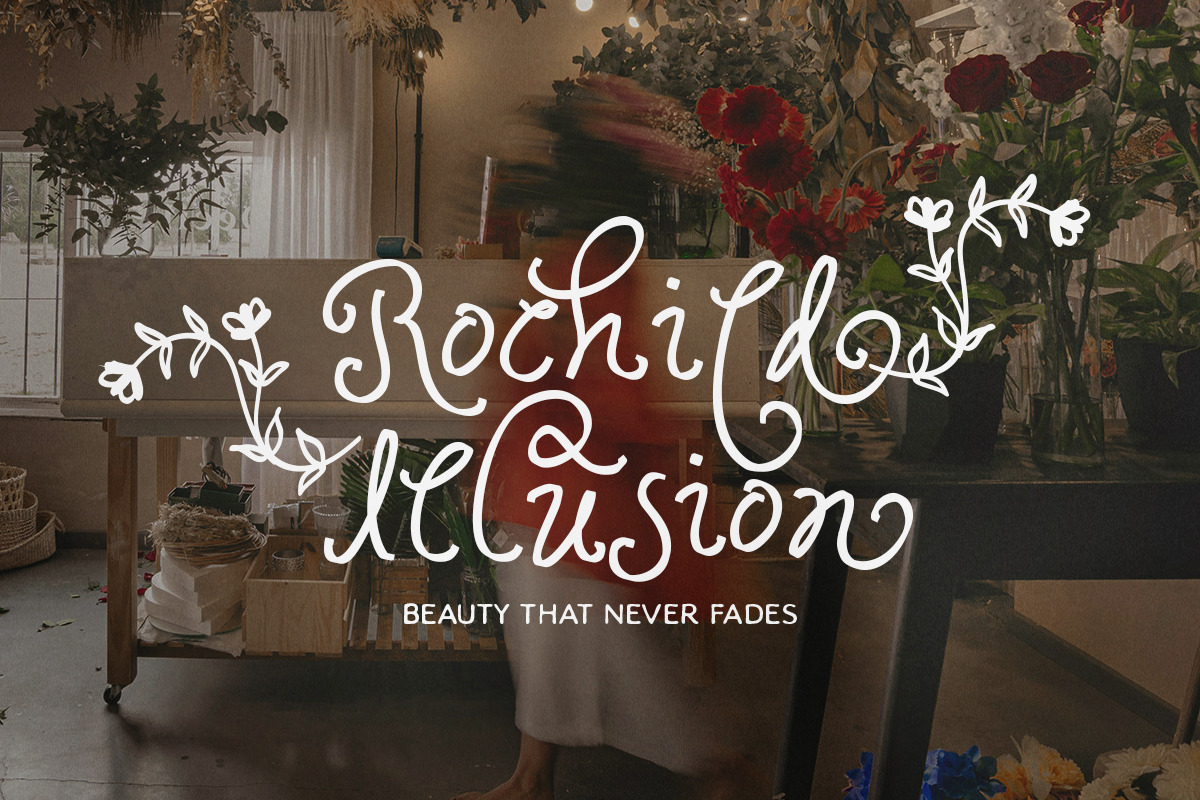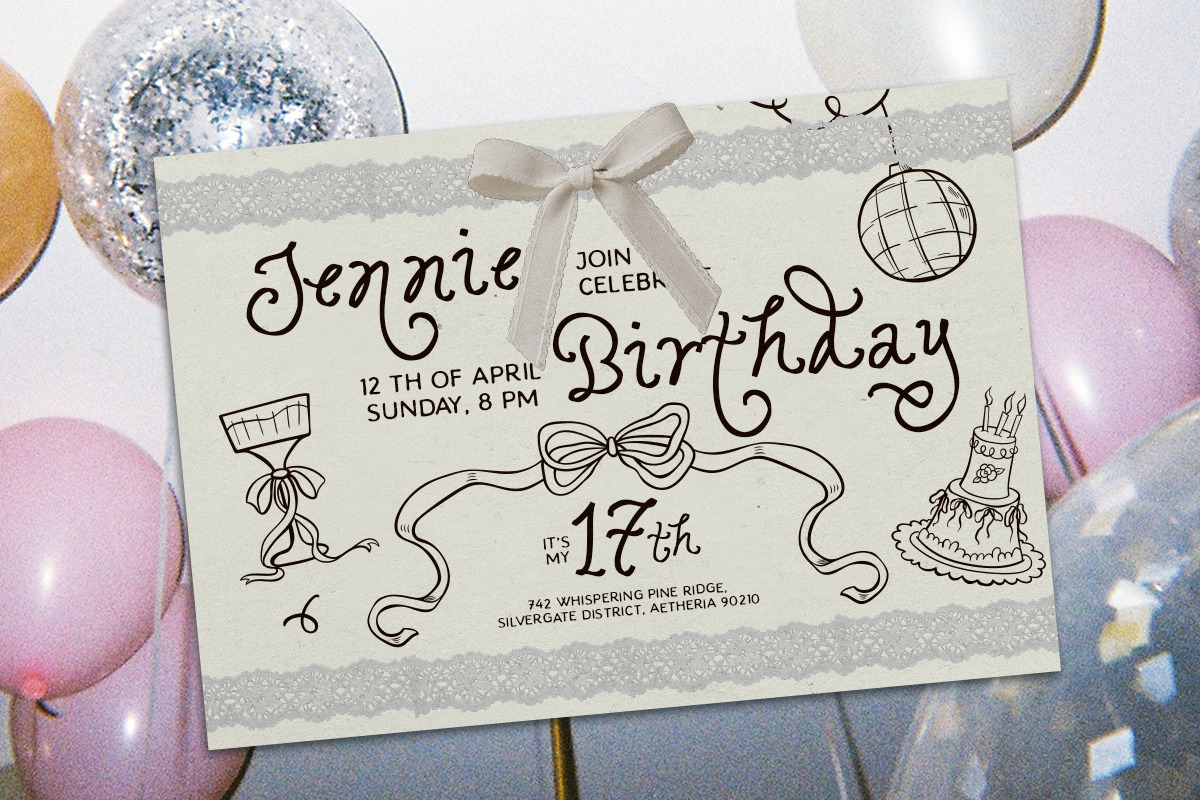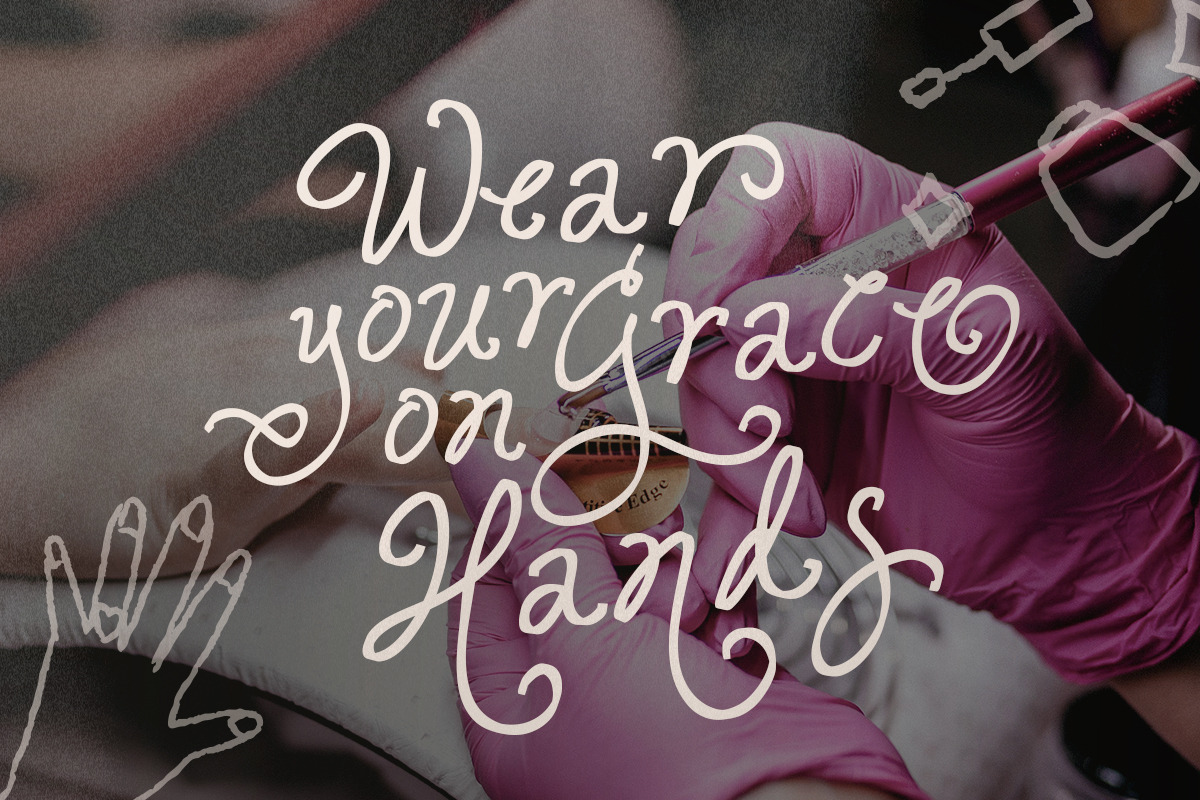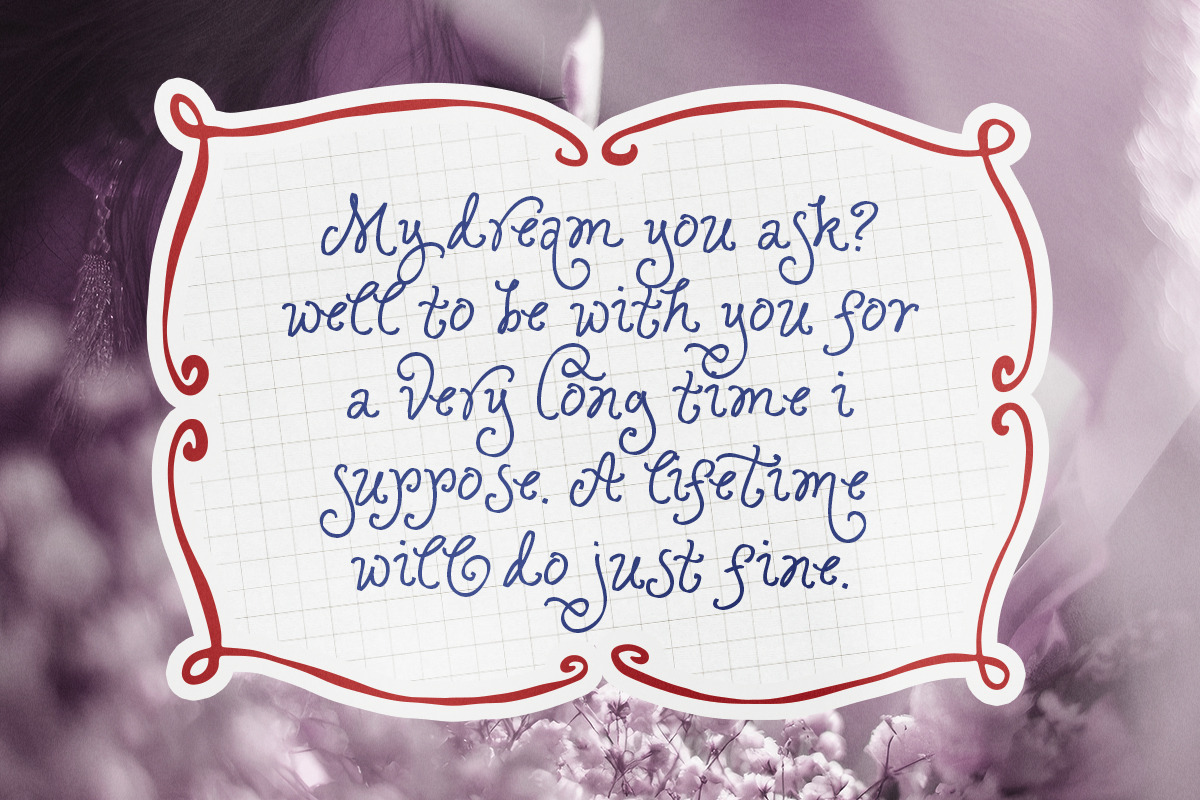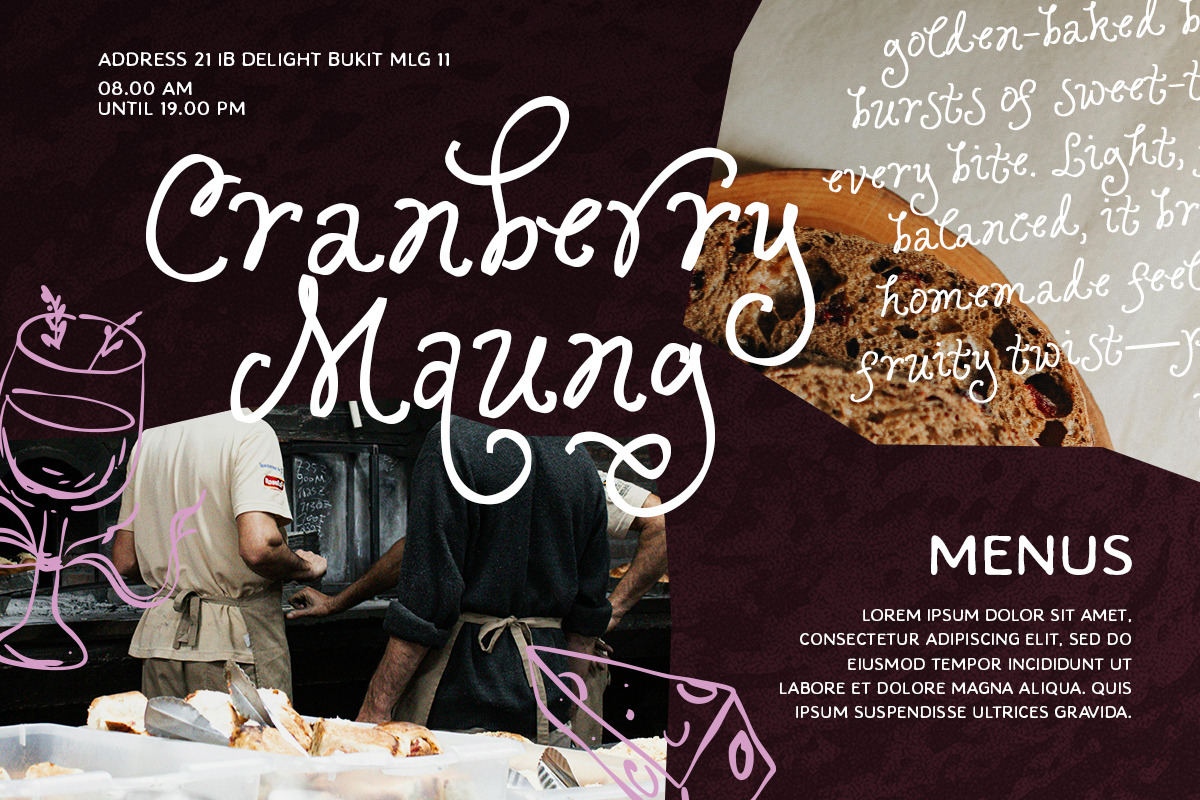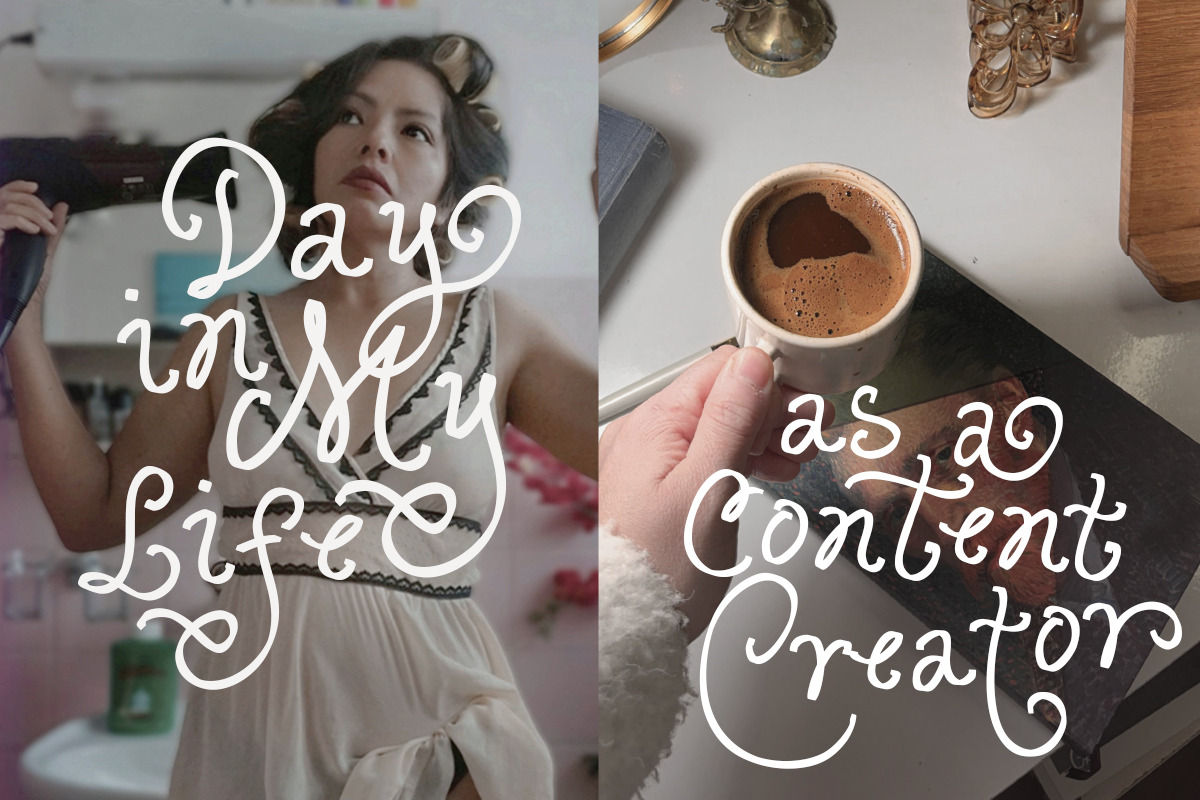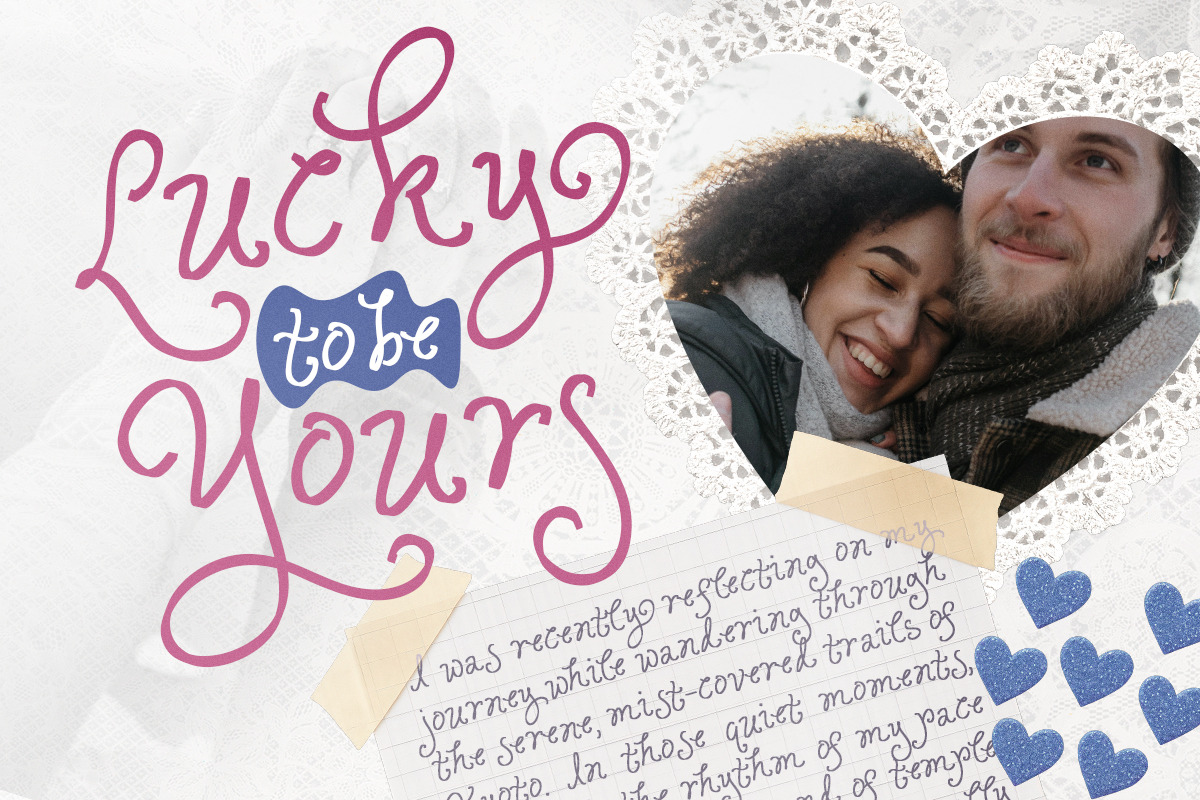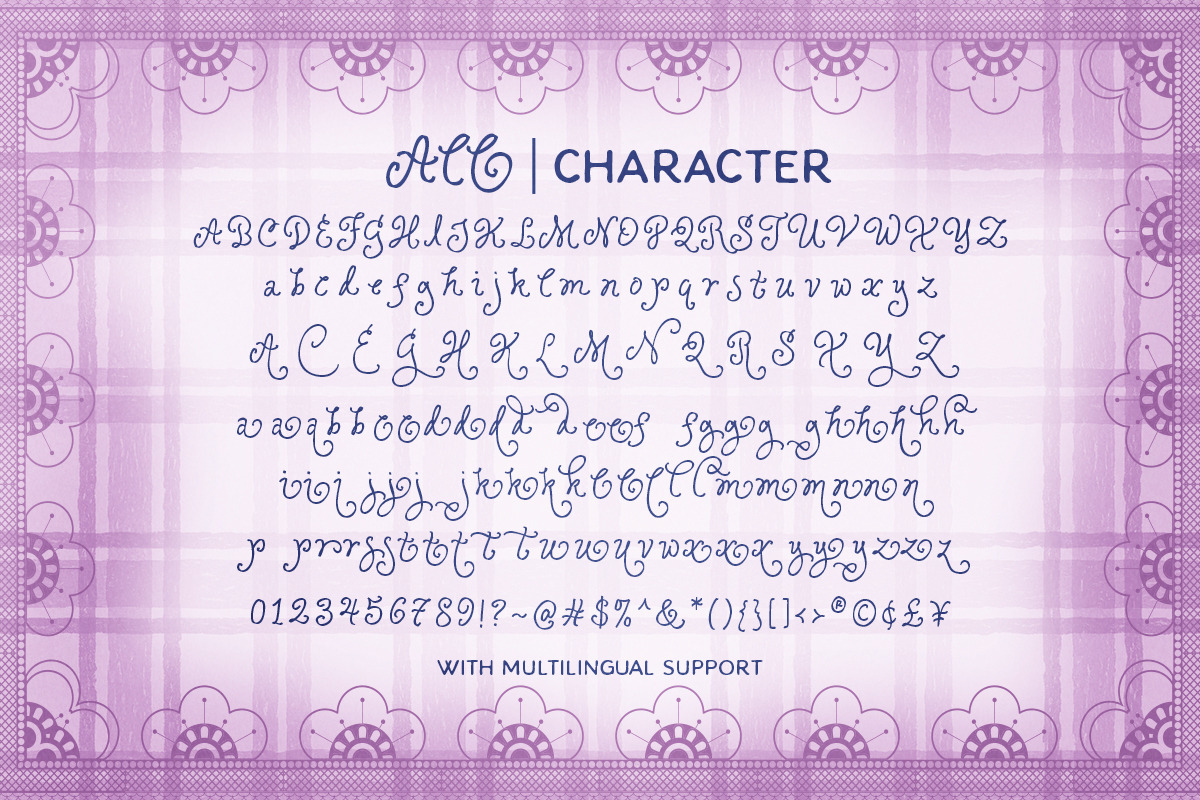
Ophelia Story - Curly Script
Ophelia Story is a cute handwritten script with swirly and girly looks. You can use this font for any cute project such as branding, logotype, quotes, or even wedding invitations. With swirly alternates, this font will make your project more stunning and stand out. Ophelia Story also support multi language.